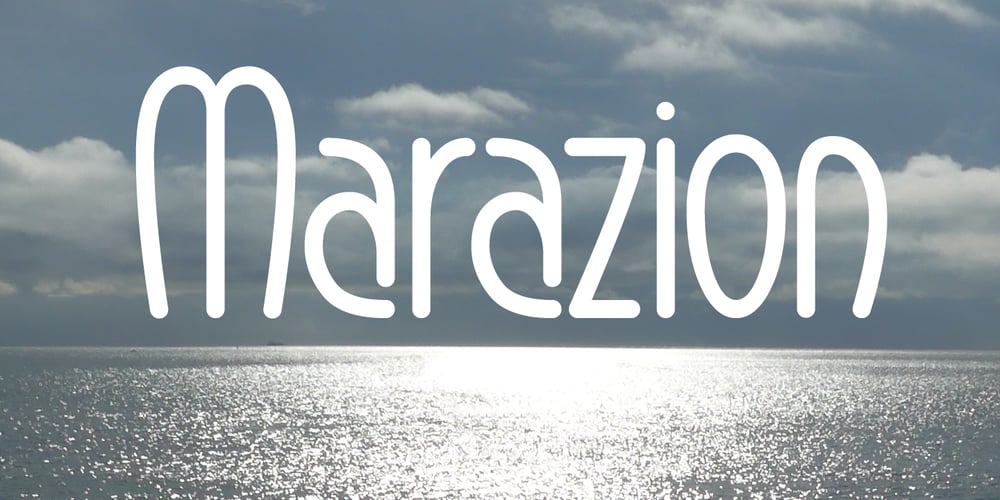
Marazion Font Family was designed by Keith Tricker and published by Studio K. Marazion contains 4 styles and family package options. Marazion takes its name from a Cornish seaside resort in the UK’s West Country. It was inspired by some hand lettering I came across at a local inn on the seafront where I was enjoying a lunchtime pint (always a good place to seek inspiration in my experience!) Being based on a hand drawn script Marazion is a smooth, fluid and rounded font that is both fresh and distinctive. Personally, I think it is well suited to applications in food and fashion, but in practice its uses are more or less universal.